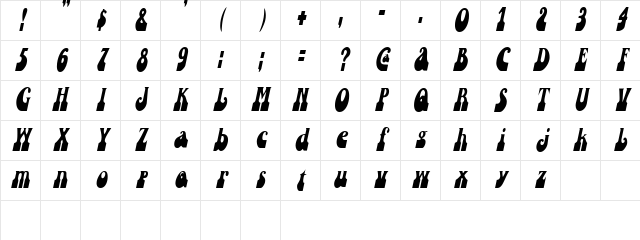
Complete SandCastlesCondensed Oblique glyph index. Displaying only characters natively supported by SandCastlesCondensed Oblique font.
SandCastlesCondensed is a composed and adaptable typeface that performs quietly and consistently across a wide range of design contexts. The slanted form adds forward momentum and visual energy. Its narrow stance lets it pack a punch even in space-constrained designs.